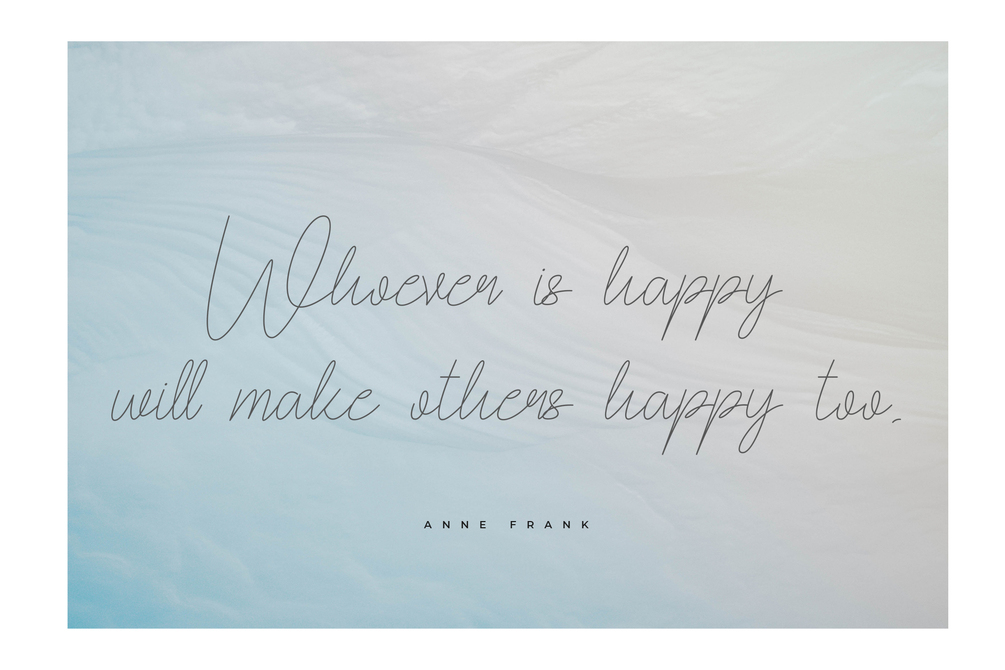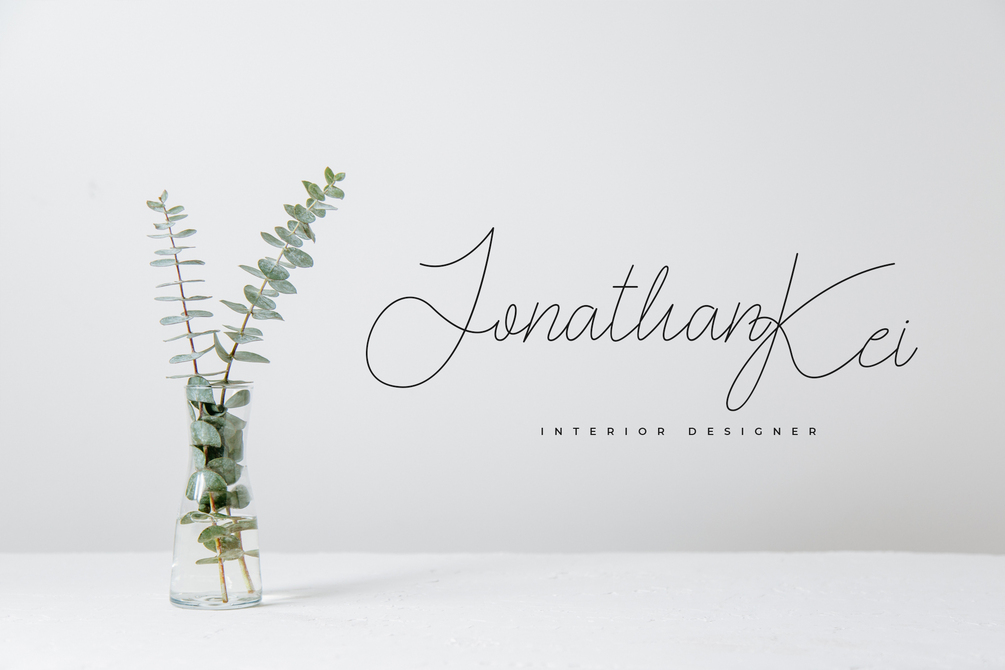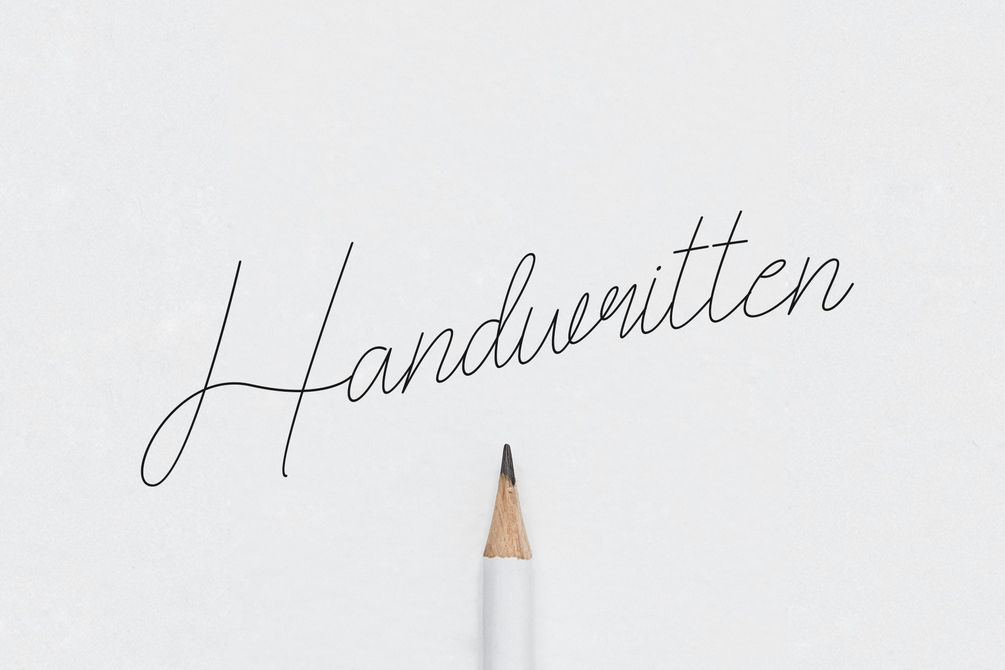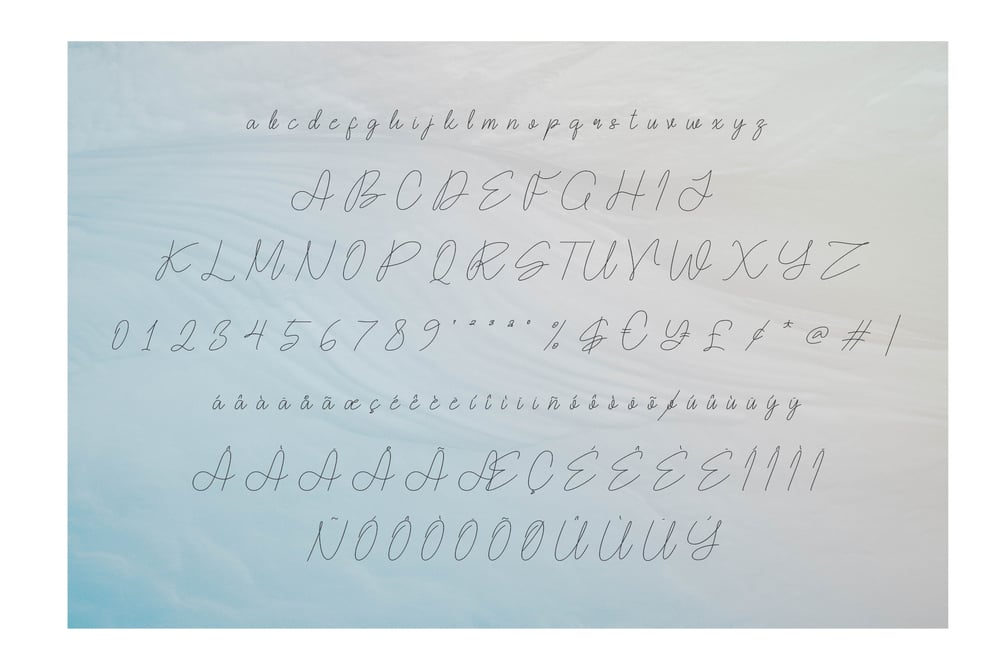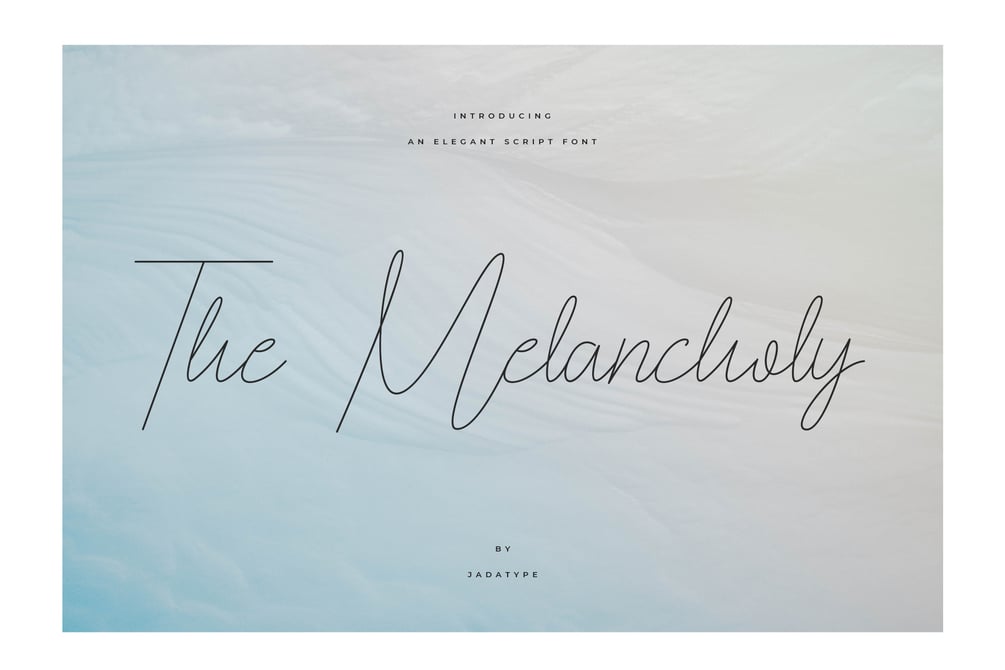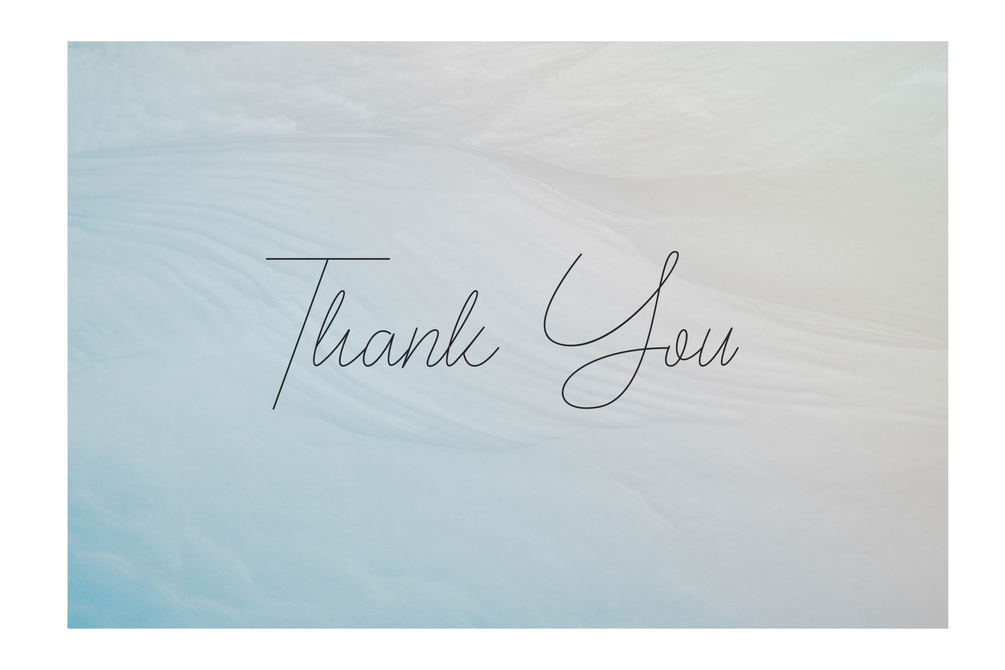
The Melancholy Font
The Melancholy is a script font with elegant lines. suitable for weddings, invitation cards, greeting cards, product design, branding, logotype and so on. contains standard English letters, numbers, punctuation, and several accents that support multilingualism.